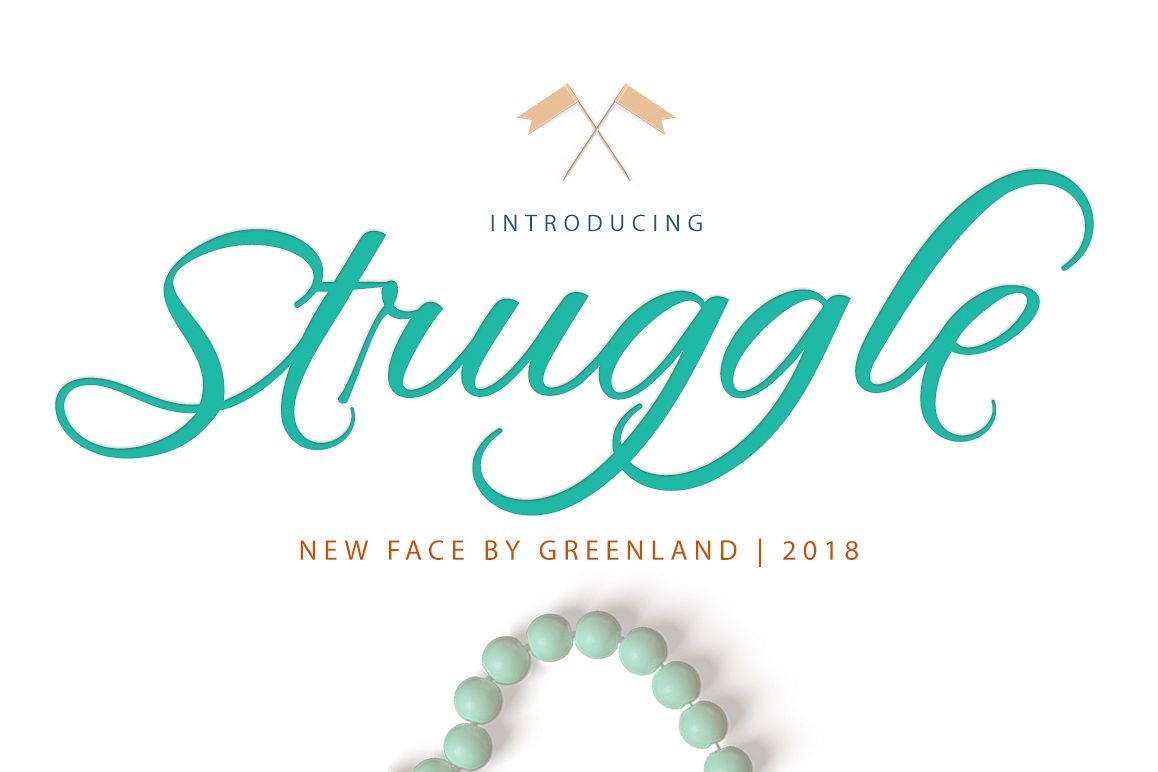
STRUGGLE
Struggle
is a beautiful stand out typeface with classic touch built in 500 glyphs. This typeface can be used for various purposes.such as logos, wedding card, heading, t-shirt, letterhead, signage, lable, news, posters, badges etc.FILE INCLUDE::
FEATURES:
• Stylistic alternate
• Contextual alternates
• Standard Ligatures
• Discretionary Ligatures
• Contextual Ligatures
• Swashes
• Numerals
• Punctuations
• PUA encode glyphs